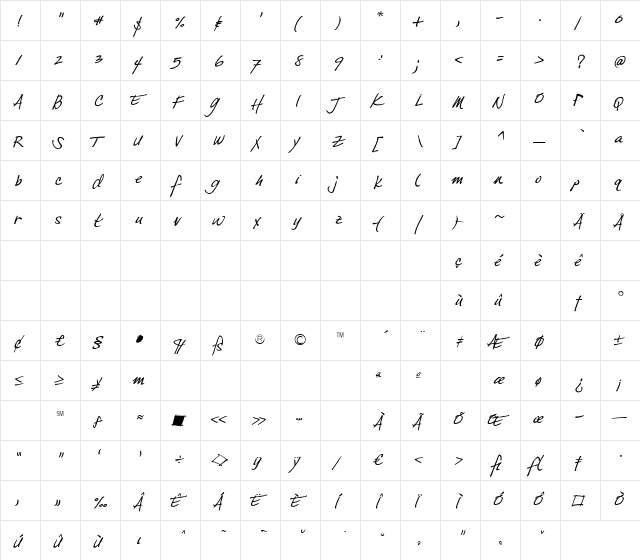
DuffyScript Regular Font Preview
DuffyScript Regular
Design Context for DuffyScript Typeface
DuffyScript flows with the natural rhythm of handwritten lettering, making it ideal for designs that call for warmth and personal expression.
Font Pairing: Combine DuffyScript with a simple geometric sans for maximum contrast — the tension between flowing curves and clean structure is a classic typographic pairing.
Pro Tip: Pair DuffyScript with a clean sans-serif for supporting text. The contrast between fluid script and geometric structure creates an elegant typographic hierarchy.